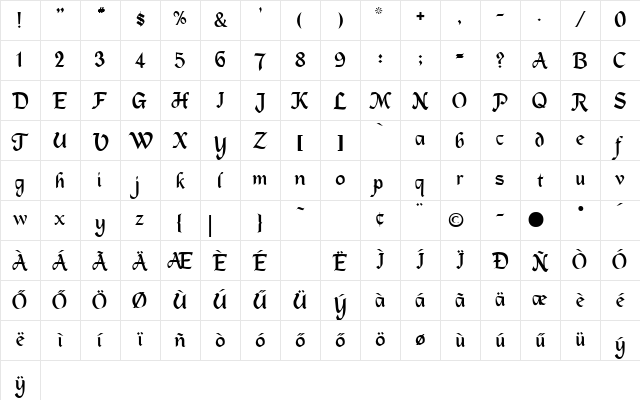
H_MacHumaine Regular
Design Context for H_MacHumaine
H_MacHumaine is a composed and adaptable typeface that performs quietly and consistently across a wide range of design contexts.